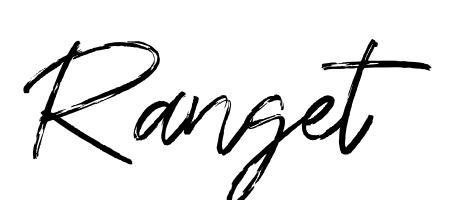
Ranget
By Khurasan
Ranget: A flowing script font, its letters dance across the page with a graceful, almost whimsical charm. The 'R' and 'g' possess a particularly elegant flourish, while the overall style suggests a touch of both modernity and classic handwritten elegance. It's perfect for adding a touch of personality and sophistication to invitations, logos, or other design projects that demand a touch of stylish handwriting.